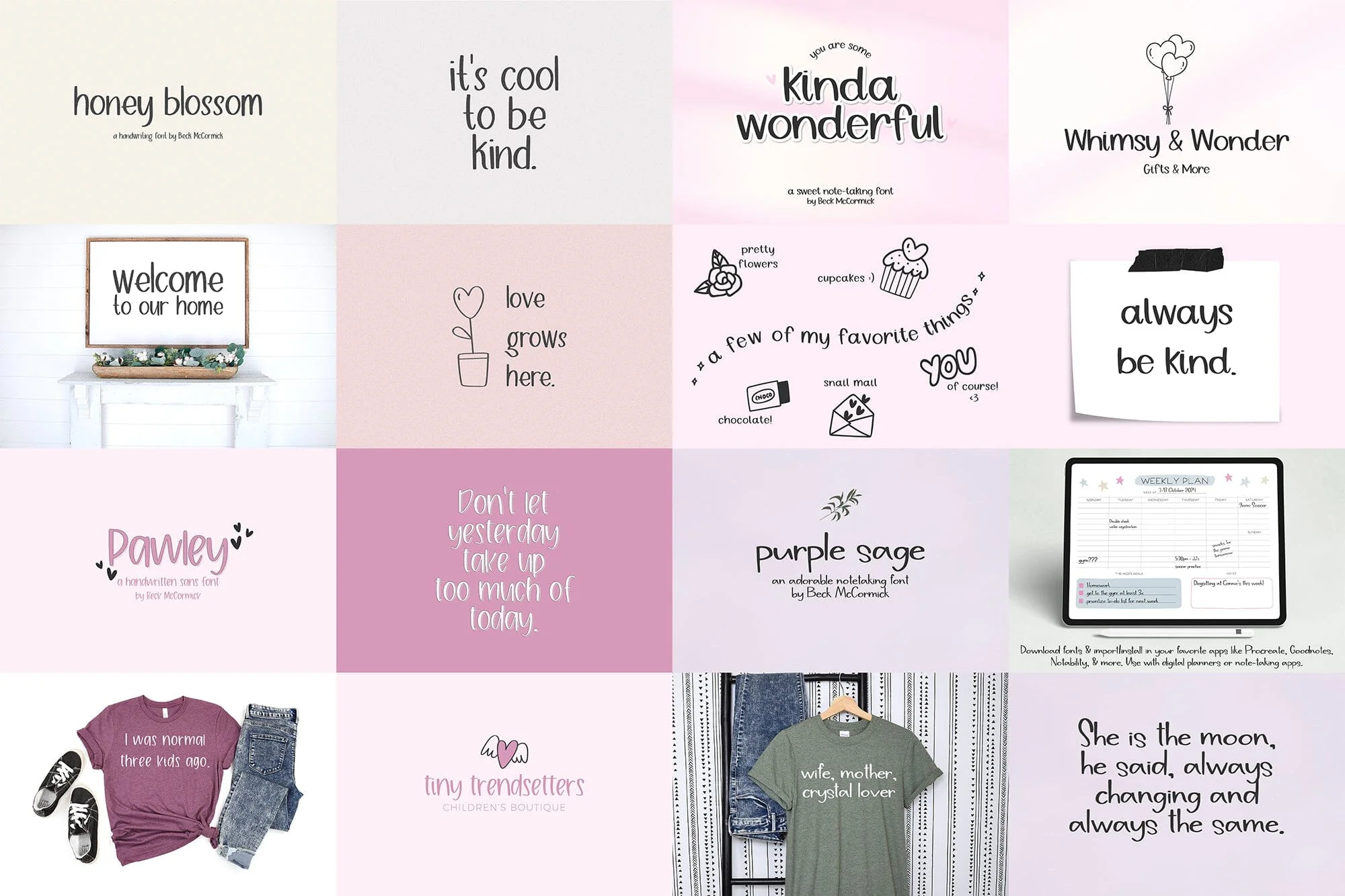
The Note Taking Font Bundle
Introducing the Note Taking Font Bundle, which includes 12 fonts! This bundle was curated with the student & planner-obsessed in mind - who doesn’t love cute fonts to use in GoodNotes, Procreate, or Notability?!
Bridgewater Sans
Charming Dear Sans
Dear February Sans
Doveheart Script
Honey Blossom Sans
Kinda Wonderful Sans
Pawley Sans
Purple Sage Sans
Ridgepine Sans
Rolling Farms Sans
Valley Girl Sans
Wonderment Sans
- use with your favorite planner app (GoodNotes, Notability, or Procreate) to make some super cute weekly & monthly planners
- use as guidelines for handwriting practice - perfect for teachers that are teaching penmanship, or for the casual learner
- use to jazz up your note-taking for your latest classes in school - kept things totally legible but cute, making it even more fun to study
- use to create cute flyers, posters, or classroom elements for bulletin boards, name tags, & more